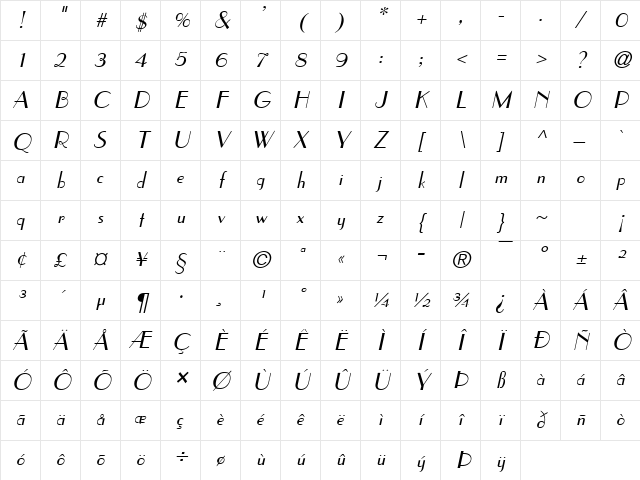
Complete Paris Italic glyph index. Displaying only characters natively supported by Paris Italic font.
Paris is a composed and adaptable typeface that performs quietly and consistently across a wide range of design contexts. The slanted form adds forward momentum and visual energy.